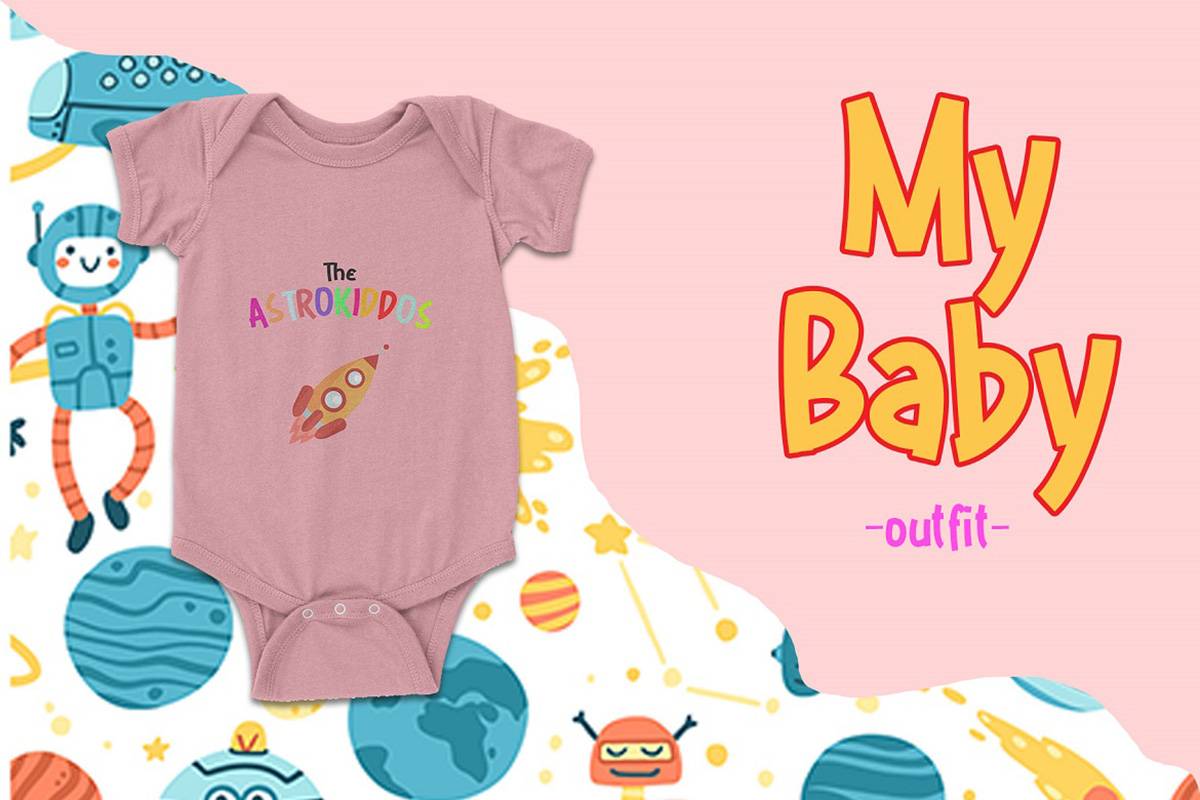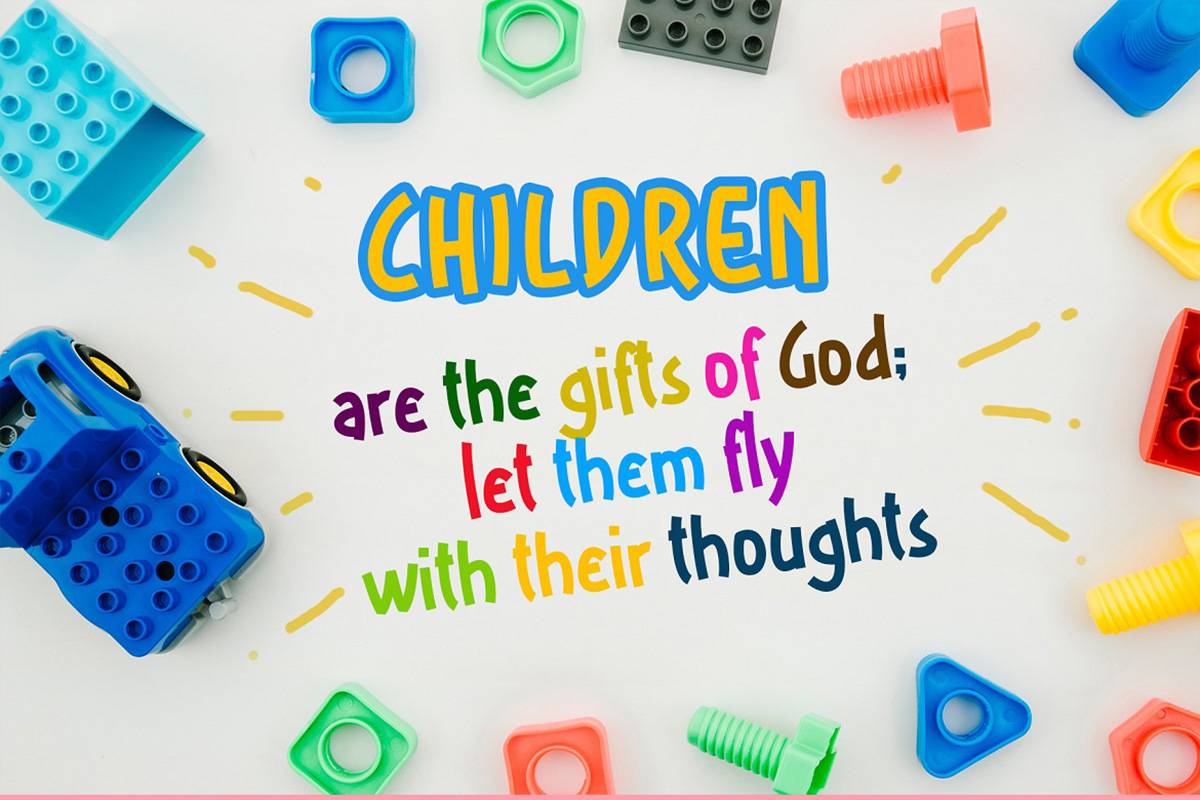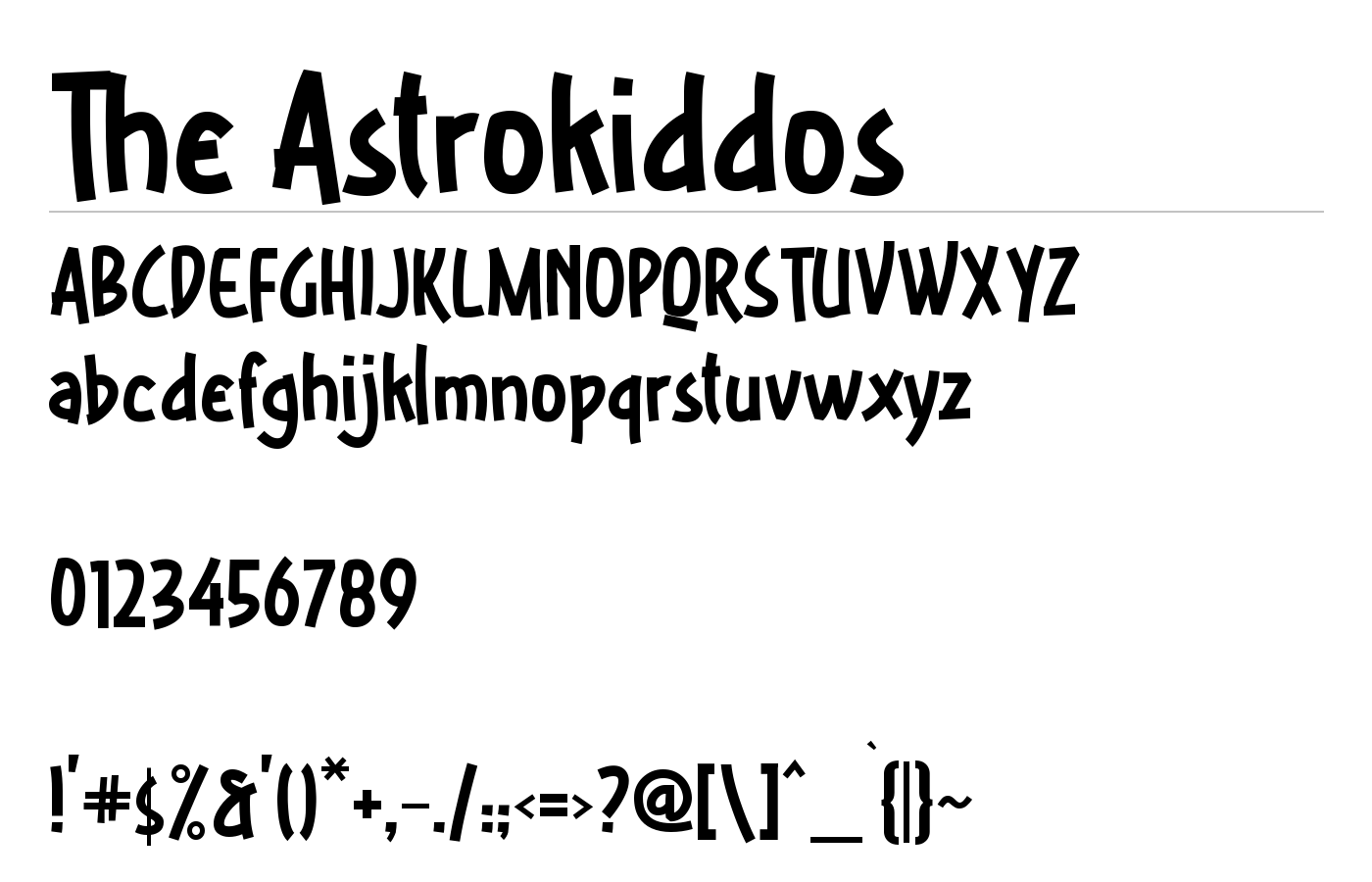
The Astrokiddos font is a playful and quirky sans serif typeface with irregular, slightly tilted letterforms that give it a lively, informal feel. Its bold weight and uneven strokes make it ideal for designs aimed at children or creative projects, adding a fun, energetic personality. This font works great for headlines, posters, and branding where a youthful and approachable look is desired.
The Astrokiddos Font
About The Astrokiddos Font
| Font family | The Astrokiddos Font |
| Designer | Didi Syarif (Walkeren) |